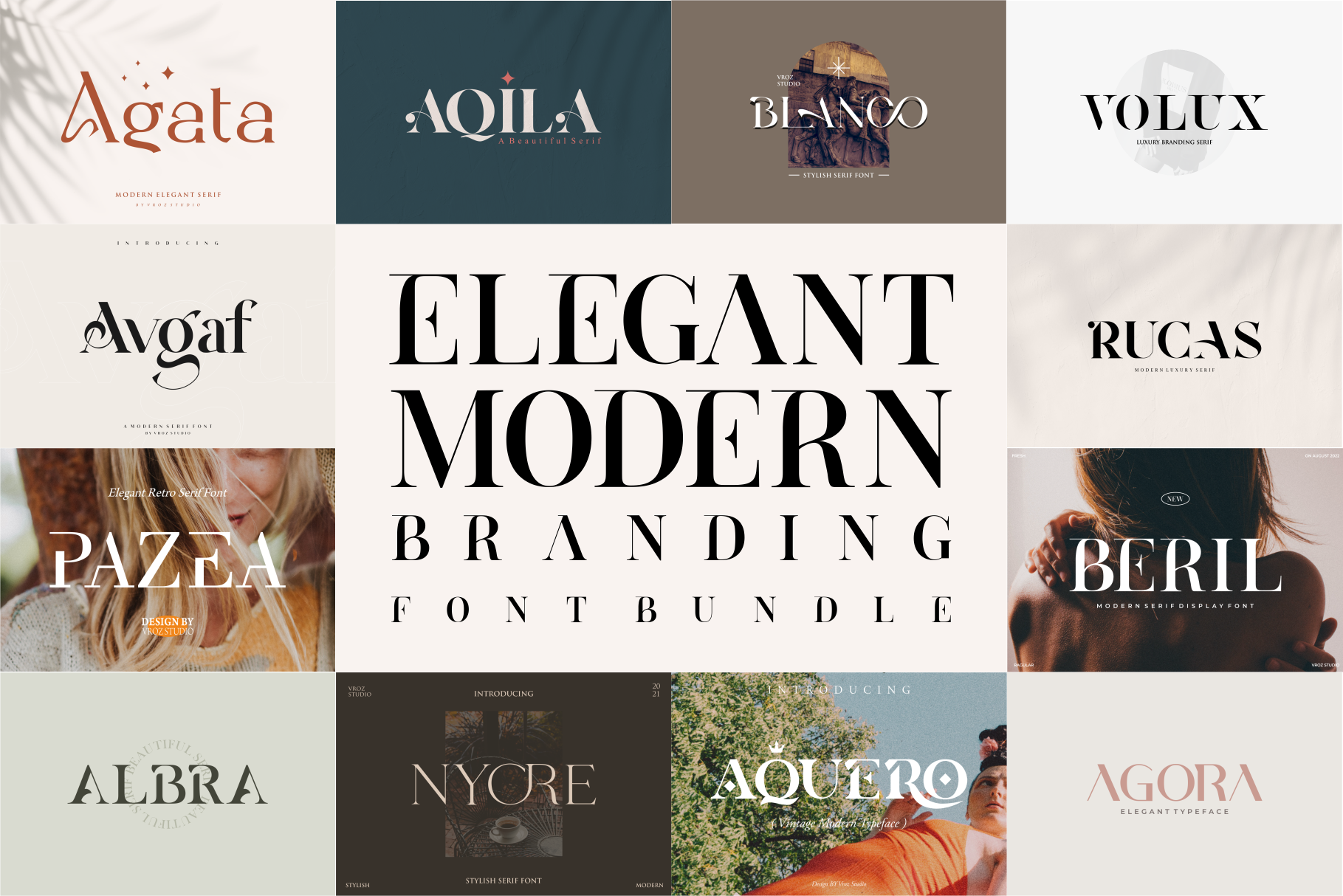
Elegant Modern Branding Font Bundle
We make serif font bundles which can be used for purposes such as fashion, magazines, logos, branding, photography, invitations, wedding invitations, quotes, blog headers, posters, advertisements, postcards, books, websites, etc.
- Uppercase and lowercase letters
- Multilingual Characters
- Numerals & punctuations